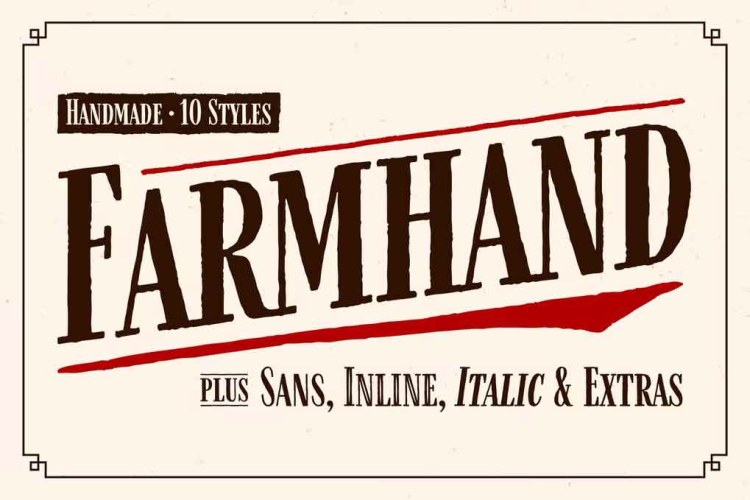
Farmhand Font Family
Farmhand is a textured, hand drawn, condensed font family featuring serif, sans, inline, italic, and extras styles suited for display titling. An all-caps typeface with…
Farmhand is a textured, hand drawn, condensed font family featuring serif, sans, inline, italic, and extras styles suited for display titling. An all-caps typeface with individually drawn small caps for lowercase (they are not just scaled down copies of the uppercase characters). Experiment by mixing and matching the casing for a variety of titling effects. Great for packaging, branding, headlines, etc.
The sans style gives a little different look and still has the vintage appeal. Switch to the inline styles to add a little more distinction to your type. Or introduce the matching catchwords and ornaments in the extras style to increase the typographic interest. Also included are stylistic alternates (PUA-encoded) for the uppercase vowels for a little more flair.
Where Farmhand Font Family works best
Reports, white papers and book interiors hold the eye longer when the text face has real serifs; Farmhand Font Family keeps that rhythm without looking old-fashioned.
Food, spirits and cosmetics brands lean on serif wordmarks to suggest age and care. Farmhand Font Family gives that signal at wordmark size.
Set Farmhand Font Family for the body of an award or a diploma and keep the recipient name in a script; the pairing is what makes a document feel official.
What kind of work does Farmhand Font Family suit?
It sits in the Serif Fonts group and reads as branding, condensed, display, handwritten. That makes it a candidate wherever those qualities help: headings, packaging, social graphics and brand work. Set it at the size you plan to use before deciding.